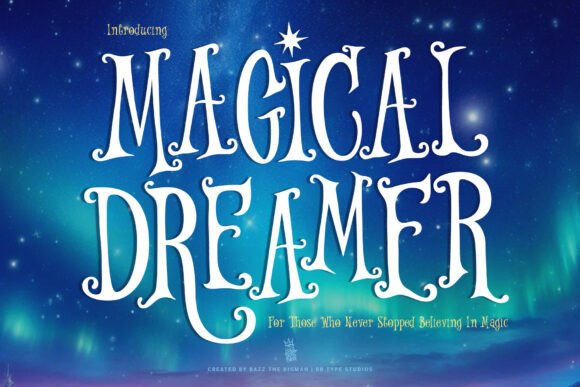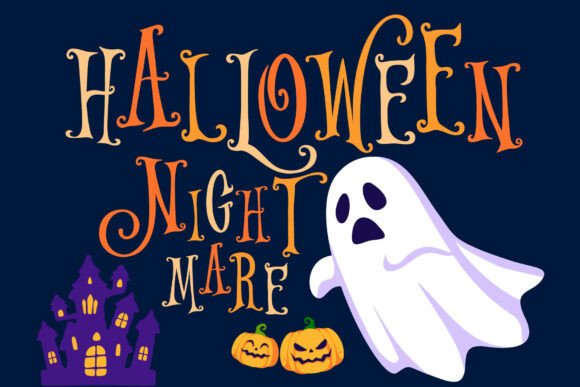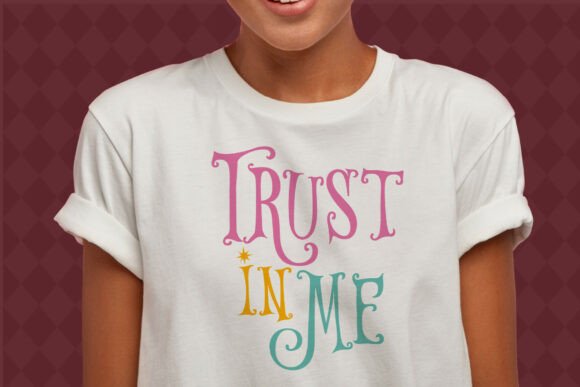
Magical Dreamer Font
Magical Dreamer is a whimsical display font that brings your fairytales to life. With its elegant curves, dreamy swashes, and playful charm, this font is perfect for storytelling designs, children’s books, fantasy-themed logos, sweet packaging, and festive greetings.
Whether you’re creating a magical Christmas card, a cute Valentine’s design, or a cozy bedtime story cover — Magical Dreamer adds a sprinkle of wonder to every word.